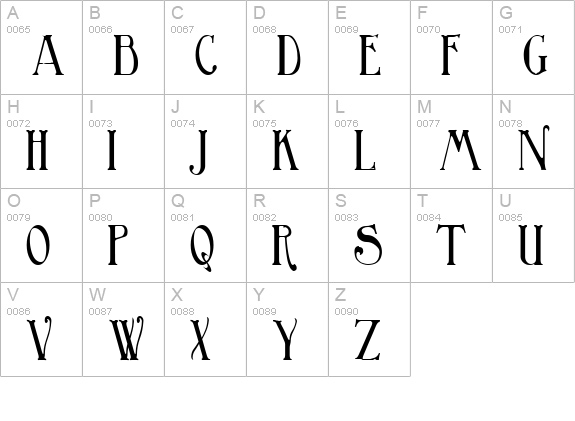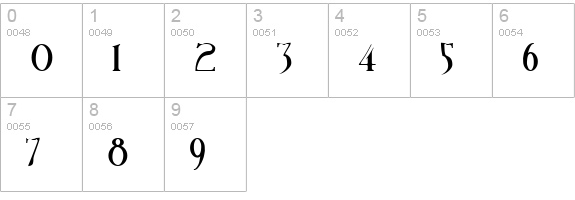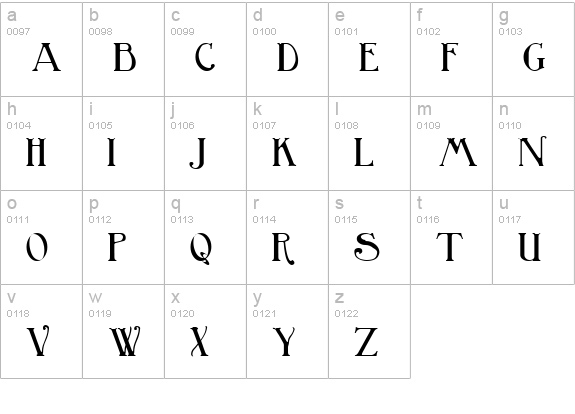
BirminghamTitling Font Details
BirminghamTitling font is a sleek and modern typeface that exudes sophistication and elegance. With its sharp lines and bold lettering, this font is perfect for creating impactful headings and titles that demand attention. Whether you're designing a poster, logo, or branding materials, BirminghamTitling will make your text stand out with its distinctive style. The best part? BirminghamTitling font is completely free to download at FontsMarket.com. So you can add this stylish font to your collection without any cost. Don't miss out on the opportunity to elevate your designs with BirminghamTitling font today!